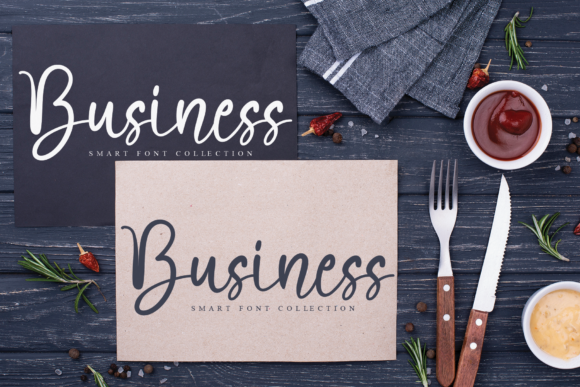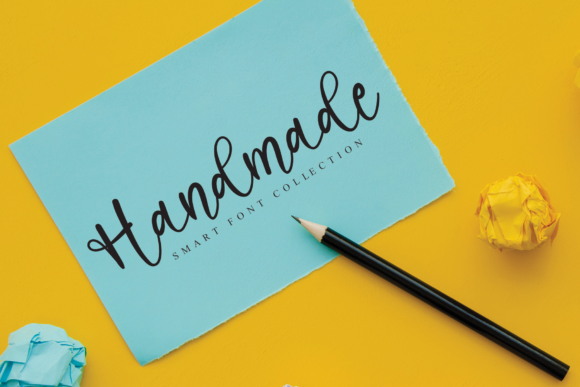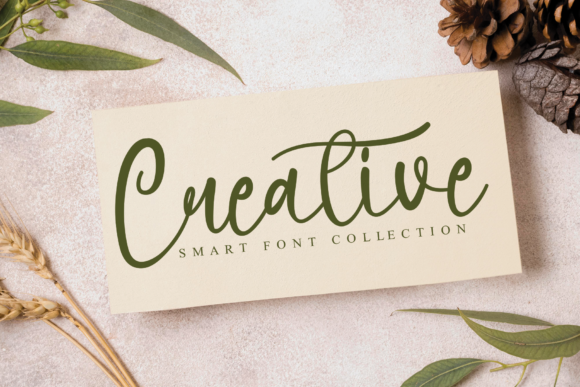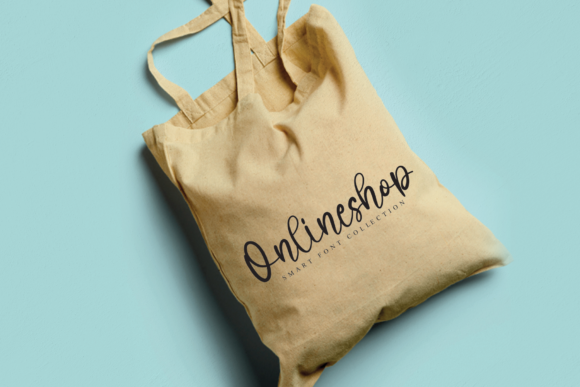
Introducing Birthdays Party Font: Elevate Your Designs with a Touch of Luxury
Are you a designer or crafter looking for a unique and stunning font to add a touch of luxury to your projects? Look no further than Birthdays Party Font! This beautiful light handwritten font is designed to make a lasting impact and elevate your designs to the next level.
What Makes Birthdays Party Font Special?
Birthdays Party Font is a one-of-a-kind font that boasts a unique feel and a stunning impact. Its light handwritten style gives it a personal and elegant touch, making it perfect for a wide range of design projects. Whether you’re creating invitations, greeting cards, or social media graphics, this font is sure to add a touch of luxury and sophistication.
Key Features of Birthdays Party Font
- Unique and Handwritten Style: Birthdays Party Font features a beautiful light handwritten style that sets it apart from other fonts.
- Luxury and Sophistication: This font is designed to add a touch of luxury and sophistication to any design project.
- Versatile: Birthdays Party Font can be used for a wide range of design projects, from invitations and greeting cards to social media graphics and more.
- Elegant and Personal: The light handwritten style of this font gives it a personal and elegant touch.
How to Use Birthdays Party Font in Your Designs
Using Birthdays Party Font in your designs is easy! Here are a few tips to get you started:
- Pair it with Other Fonts: Birthdays Party Font pairs well with other fonts, so don’t be afraid to experiment with different combinations.
- Use it for Headings and Titles: This font is perfect for headings and titles, where you want to make a bold and elegant statement.
- Add it to Your Social Media Graphics: Use Birthdays Party Font to add a touch of luxury and sophistication to your social media graphics.
- Experiment with Different Colors: This font looks great in a variety of colors, so don’t be afraid to experiment and find the perfect hue for your design.
Why Designers and Crafters Love Birthdays Party Font
Designers and crafters love Birthdays Party Font for a variety of reasons. Here are a few:
- Easy to Read: This font is easy to read, even at small sizes.
- Highly Versatile: Birthdays Party Font can be used for a wide range of design projects.
- Unique and Eye-Catching: This font is sure to grab attention and make your designs stand out.
- Luxury and Sophistication: Birthdays Party Font adds a touch of luxury and sophistication to any design project.
In conclusion, Birthdays Party Font is a beautiful and unique font that is sure to elevate your designs to the next level. With its light handwritten style and luxurious feel, this font is perfect for designers and crafters looking to add a touch of sophistication and elegance to their projects. So why wait? Try Birthdays Party Font today and see the difference it can make!